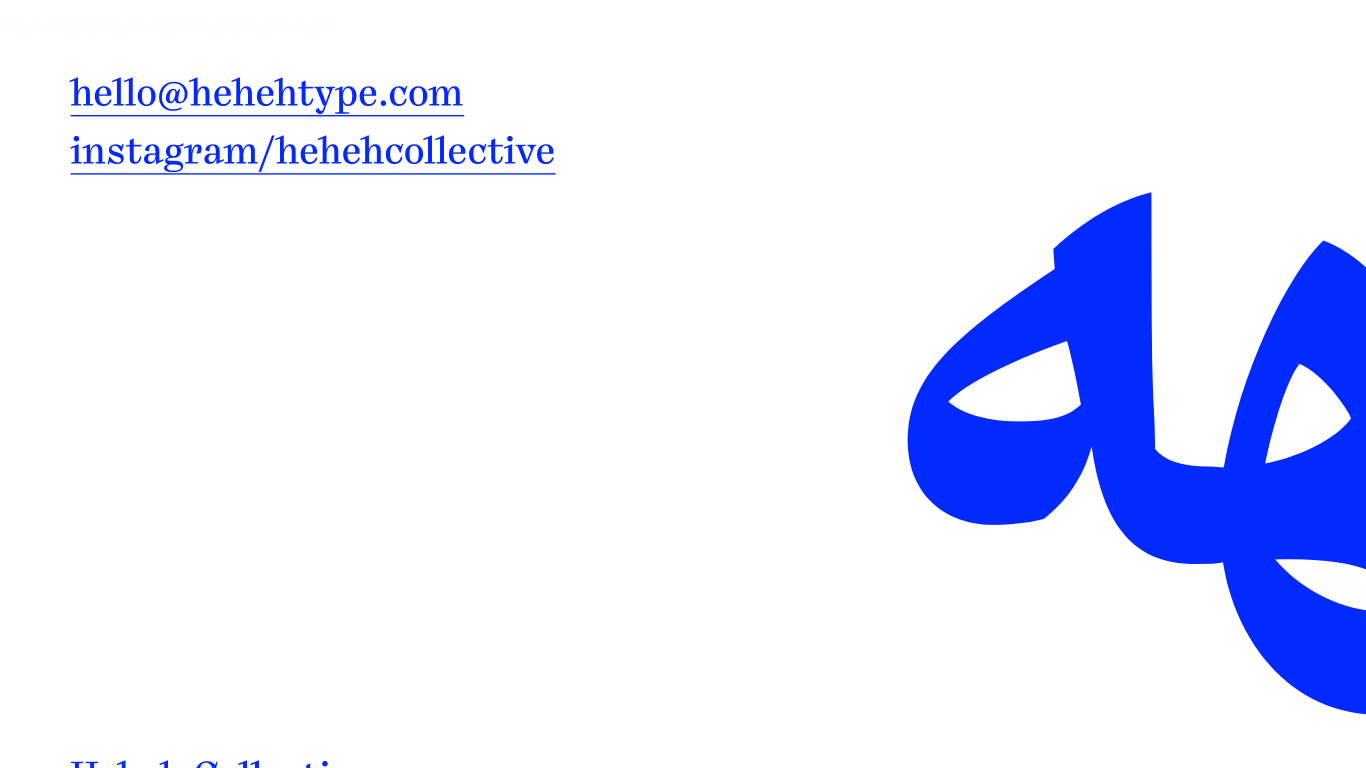
Heheh Type
Egypt
2020
Heheh Type is a Cairo-based Arabic type design collective founded in 2020 by Nour El Shamy, Shahd El Sabbagh, and Manuel von Gebhardi. The studio merges traditional Arabic calligraphy with contemporary typographic approaches to meet modern design needs. Their notable typefaces include Dobb, a playful Naskh style created for illustrated contexts, and Gawhar, a modern interpretation of Arabic script. Heheh Type’s work has been featured in projects like the Shasha Mobile Film Festival, where Dobb was prominently used.